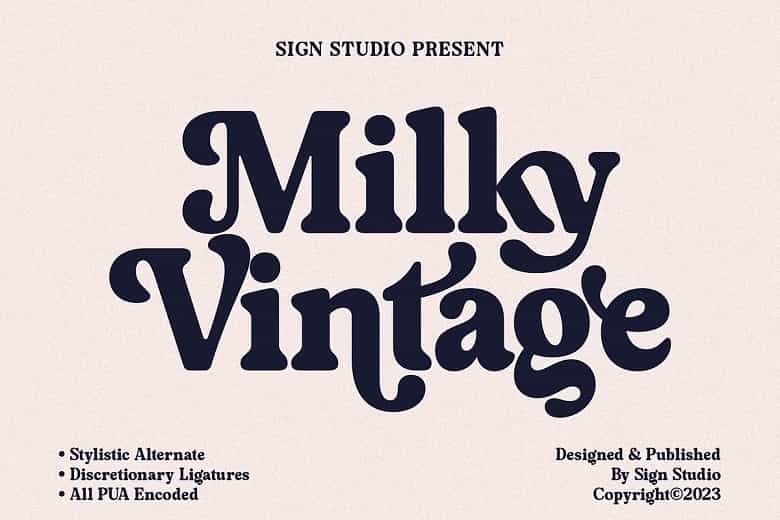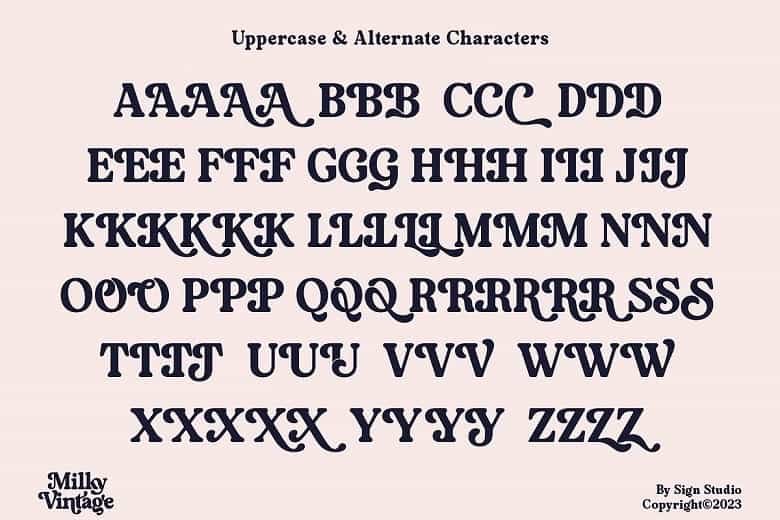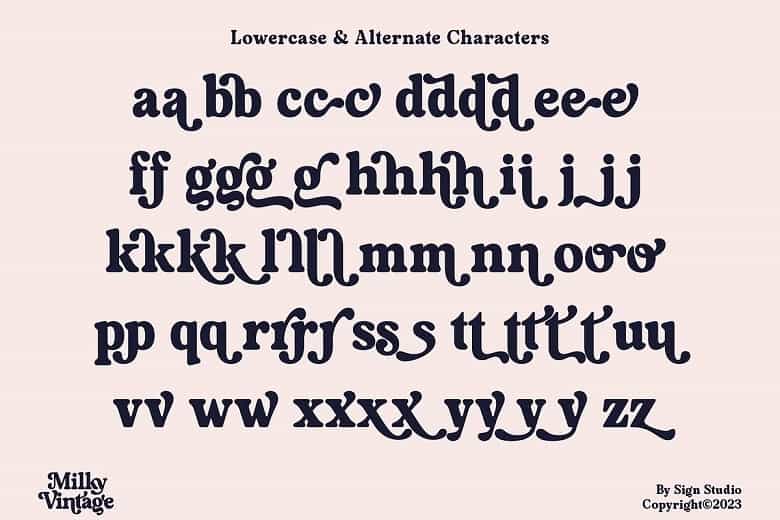
Milky Vintage is a font that has the classical look of vintage style and the feel of the modern design with its serifs embellishments and letter shapes. Features including other characters for the Upper case and Lower case. Some Ligatures (Discretionary Ligatures) are also made to be neat and elegant as well.